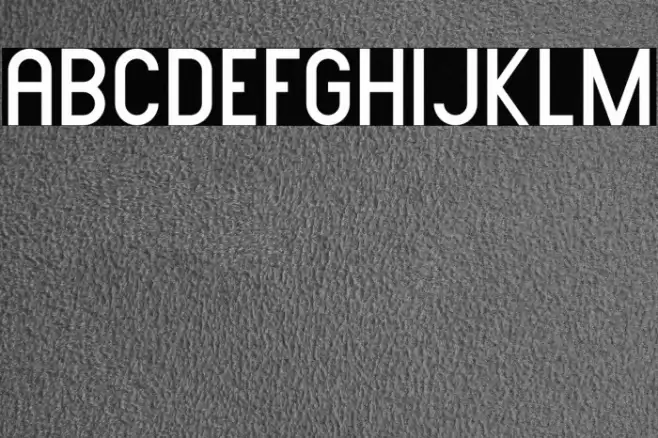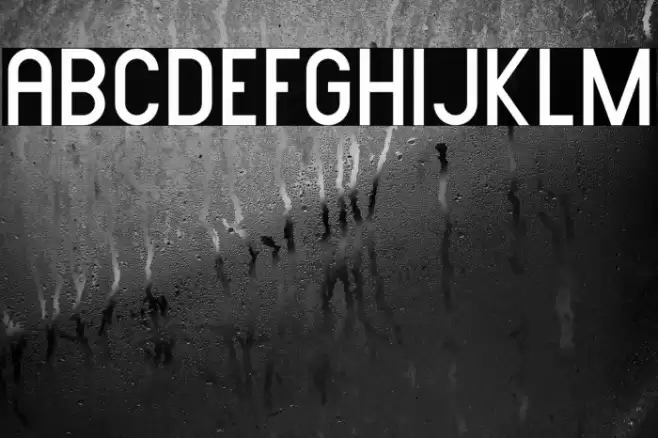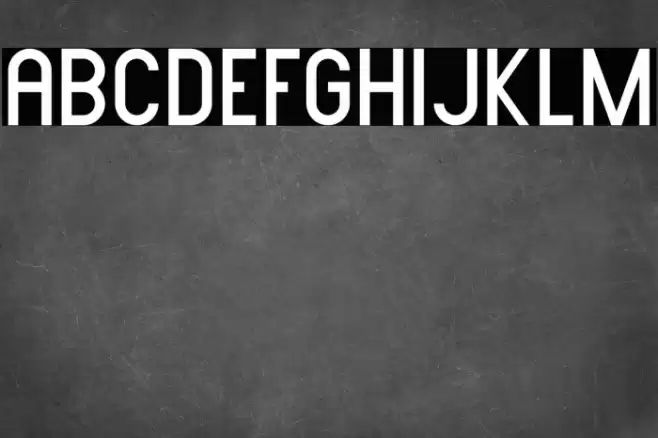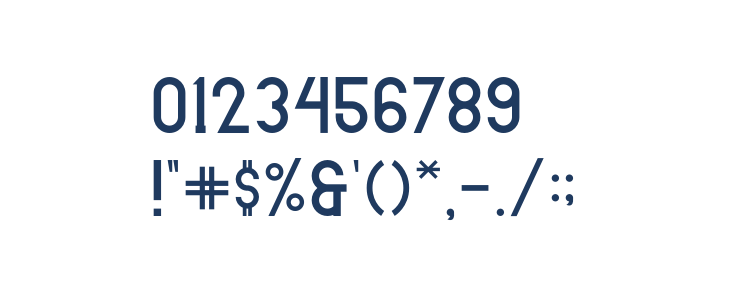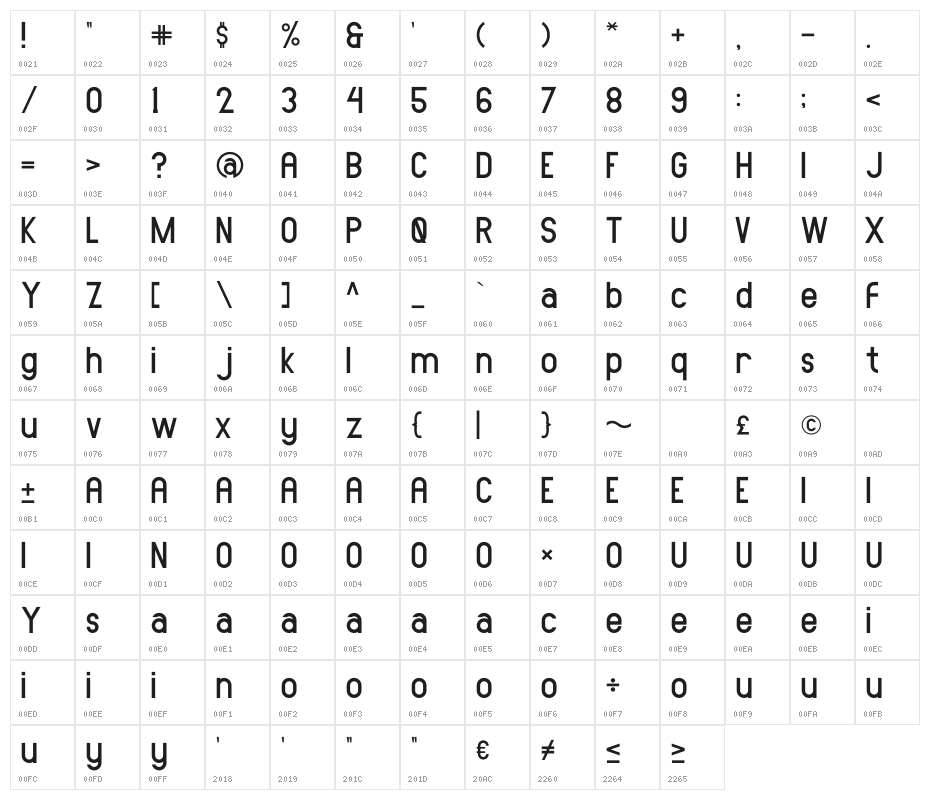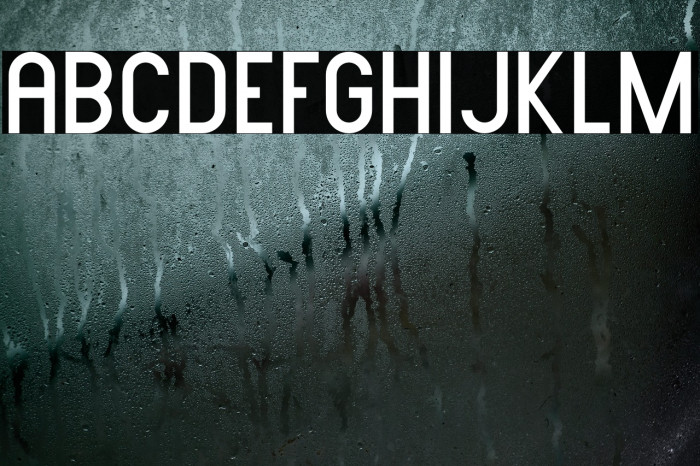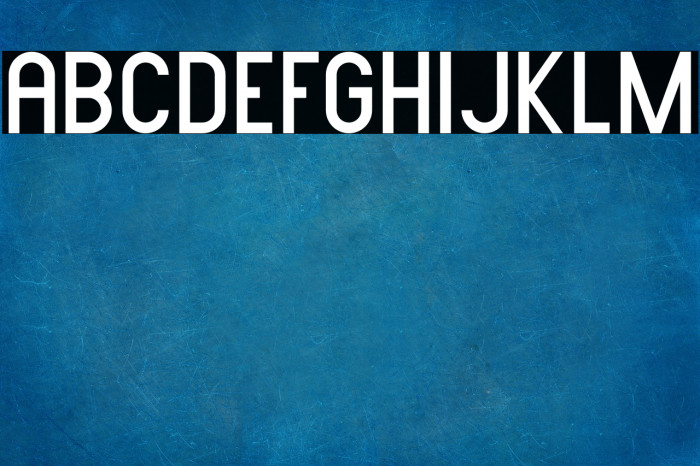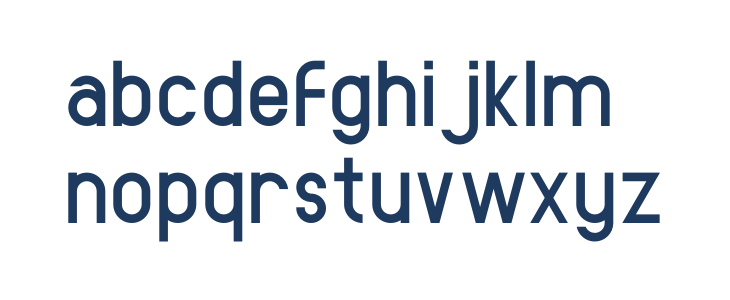
AMORICA SANS Font
AMORICA SANS Description
This typeface features a clean and modern sans-serif design, characterized by its geometric shapes and uniform stroke widths. The uppercase letters are bold and assertive, while the lowercase letters maintain a consistent height and width, providing a balanced appearance. The numerals are clear and easily distinguishable, making them suitable for various applications. Special characters are well-integrated, maintaining the overall aesthetic of the font. The simplicity and clarity of this typeface make it versatile for both digital and print media.
A modern, geometric sans-serif typeface with clean lines and uniform strokes from Uncategorized fonts.